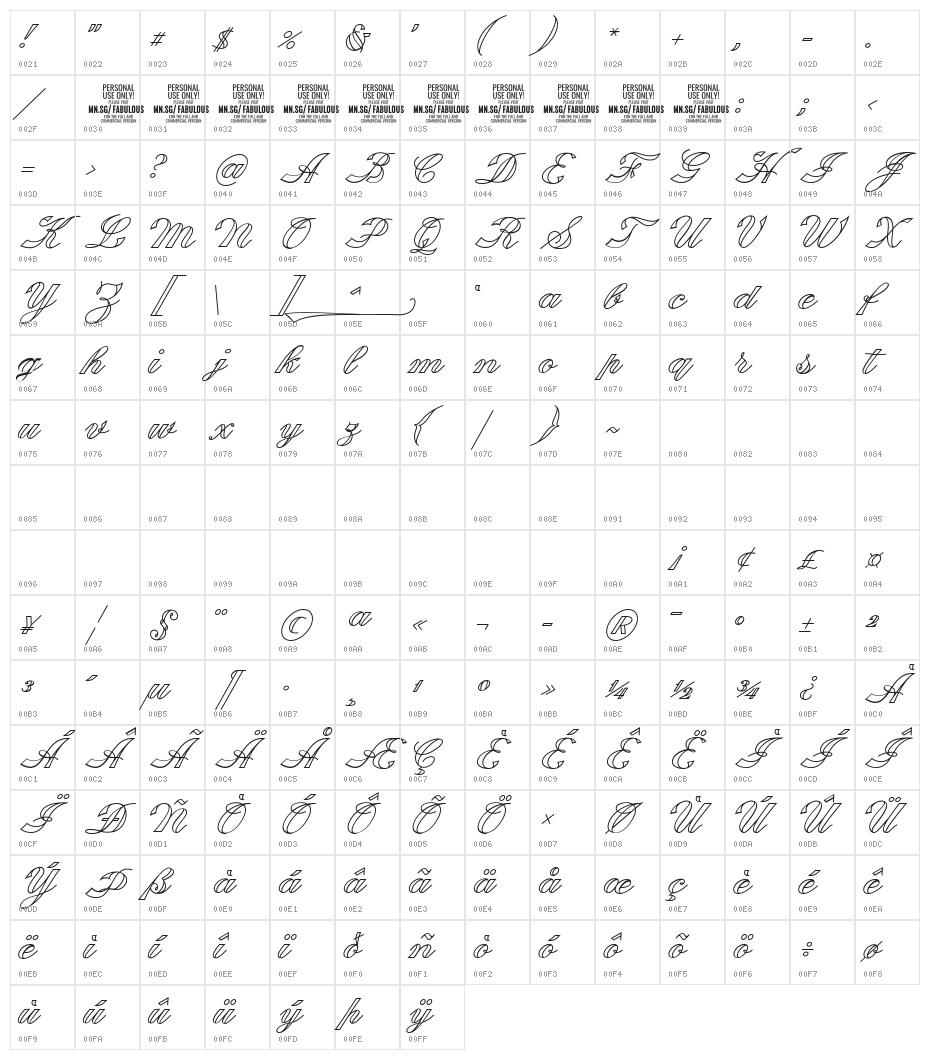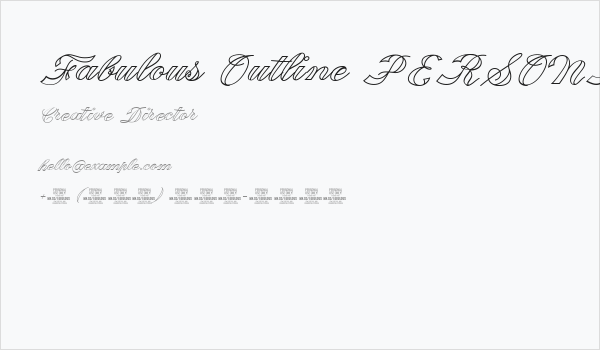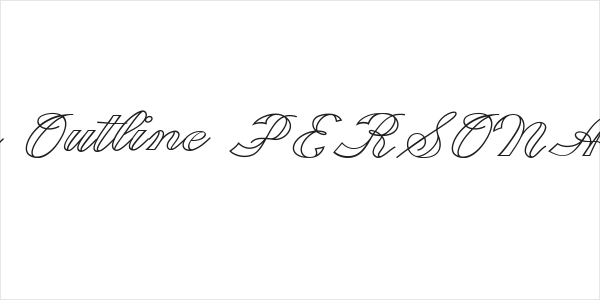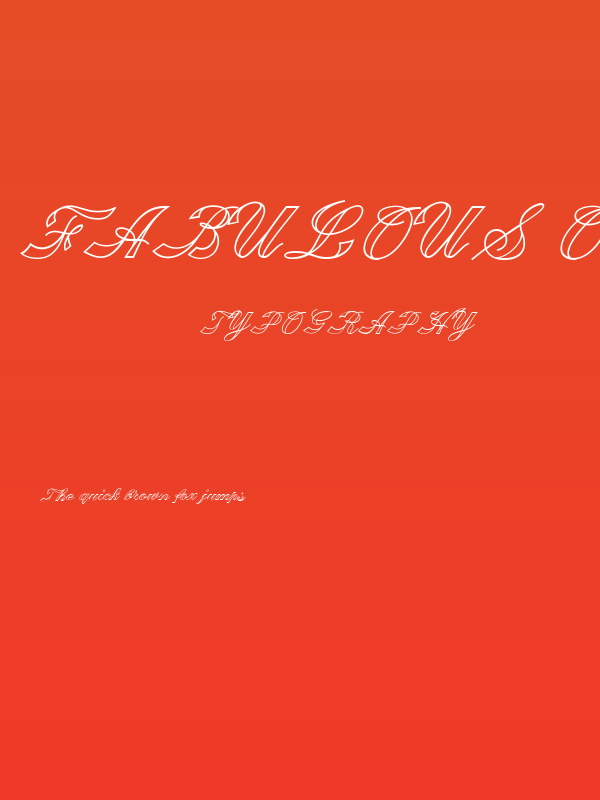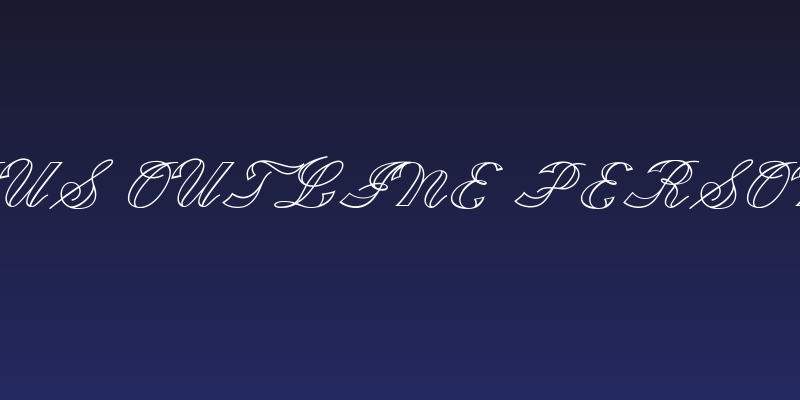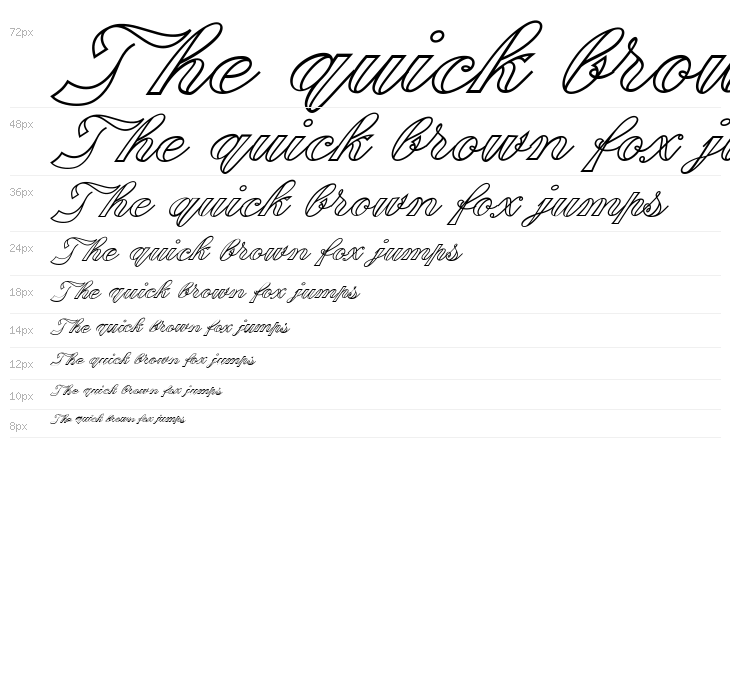
Fabulous Outline PERSONAL USE Font
Fabulous Outline PERSONAL USE Description
This font features an elegant and sophisticated outline style, characterized by its flowing script and cursive elements. The uppercase letters exhibit a graceful, interconnected design, while the lowercase letters maintain a consistent fluidity and charm. The numerals and special characters complement the overall aesthetic, offering a cohesive look. The font's outline nature gives it a unique, airy appearance, making it stand out in various design contexts. Its artistic flair is ideal for projects that require a touch of elegance and creativity.
| Proposed Projects | Ideal for wedding invitations, branding, logos, and decorative headings. |